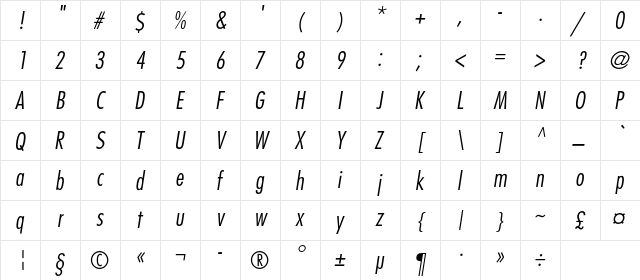
FavoritLightCondC Italic Font Preview
Design Context for FavoritLightCondC Typeface
FavoritLightCondC takes a measured approach to typography — its balanced proportions and neutral character make it a reliable workhorse for both digital and print work. The dynamic lean of this cut emphasises speed and emphasis in any layout. Its slender proportions lend an understated elegance to any composition. The condensed width makes it efficient for tight spaces without sacrificing legibility.
Pro Tip: Try FavoritLightCondC for annotation and caption copy alongside an upright companion — the contrast in angle creates a dynamic but ordered typographic system.